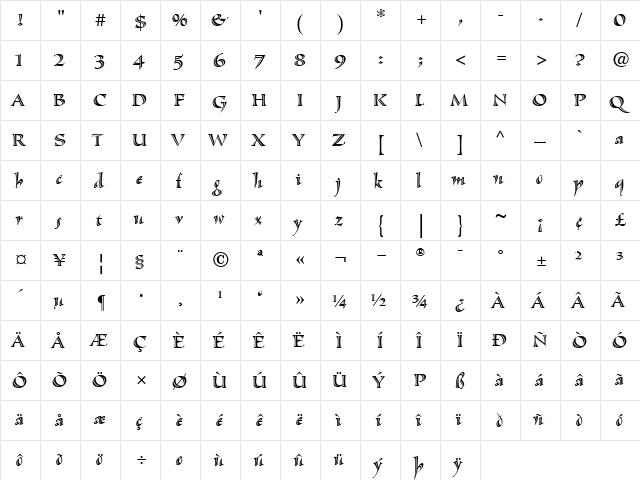
SassafrasRoman Roman
Design Context for SassafrasRoman Typeface
SassafrasRoman is a composed and adaptable typeface that performs quietly and consistently across a wide range of design contexts.